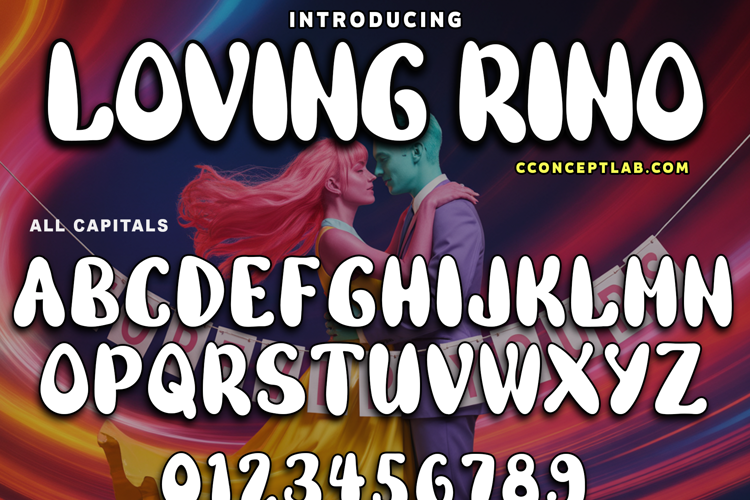
LOVING RINO Font
LOVING RINO
- Bold comic display font perfect on your projects, posters, covers, etc.
- Groovy cartoon theme font for branding, marketing, website, mobile app etc.